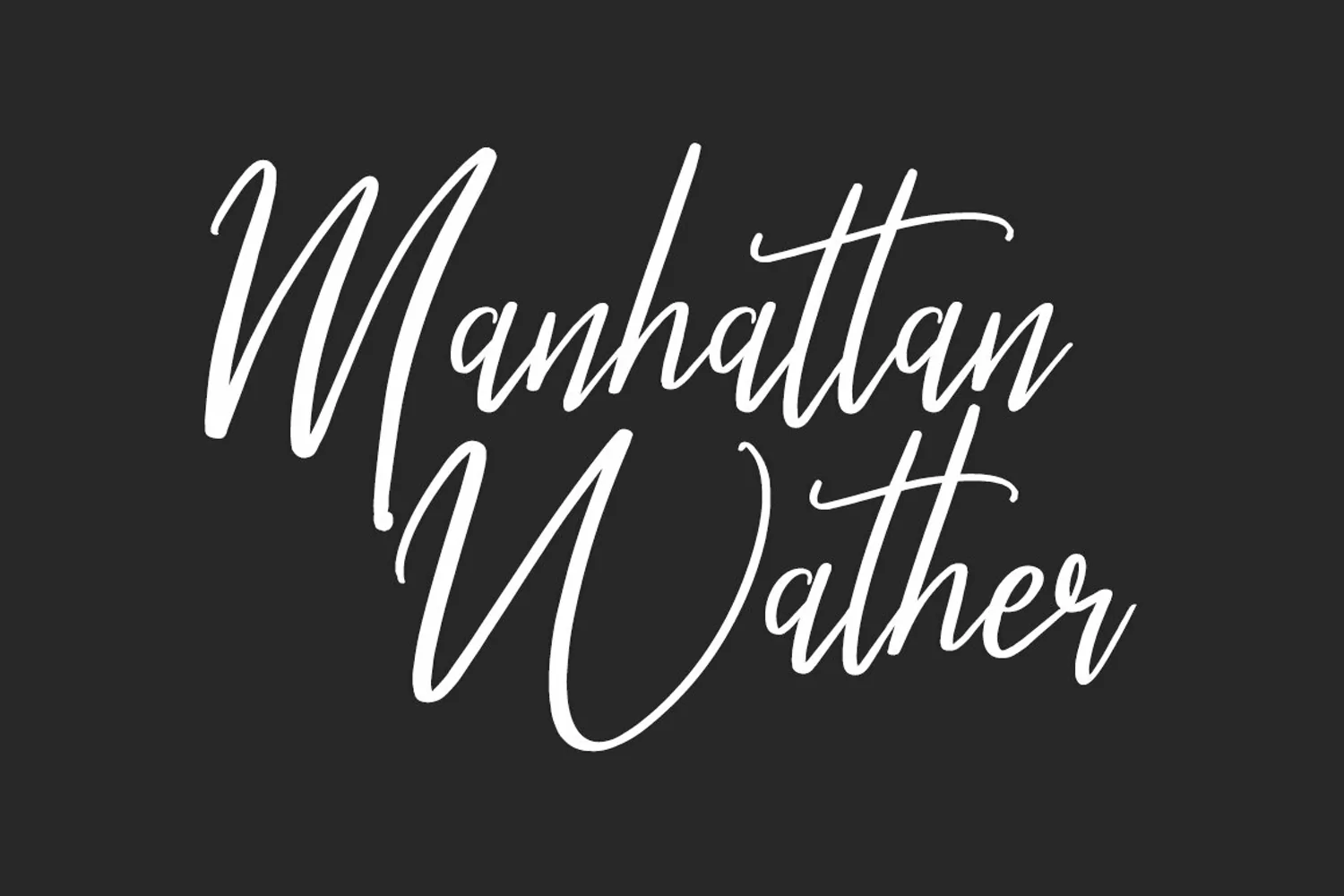
Fturism
by Maulana Creative
Give your designs an authentic handcrafted feel. "Fturism Typeface" is perfectly suited to stationery, logos and much more.Included: